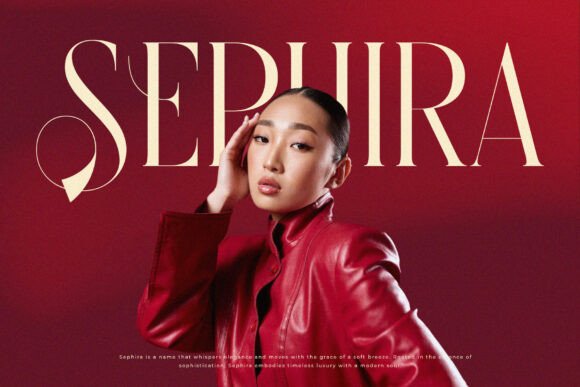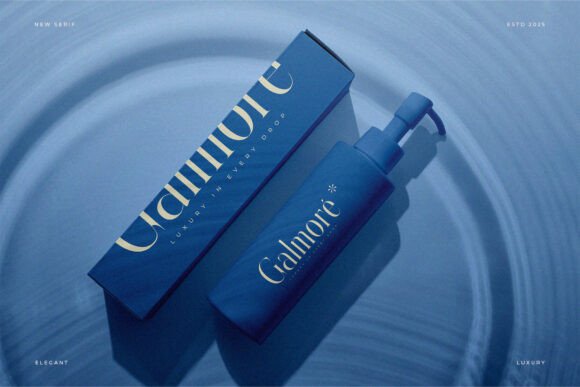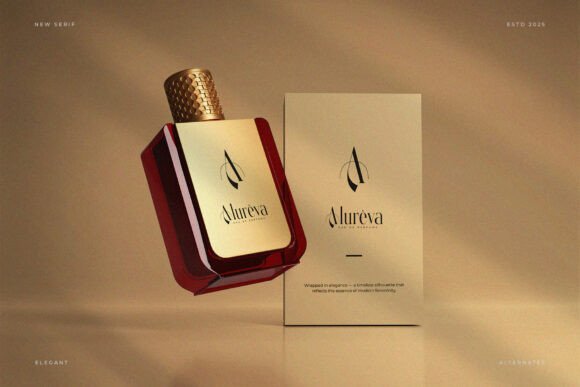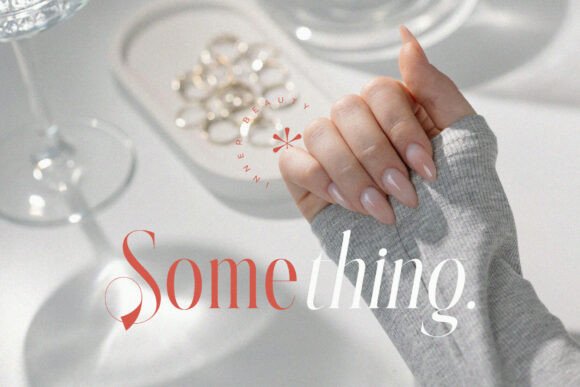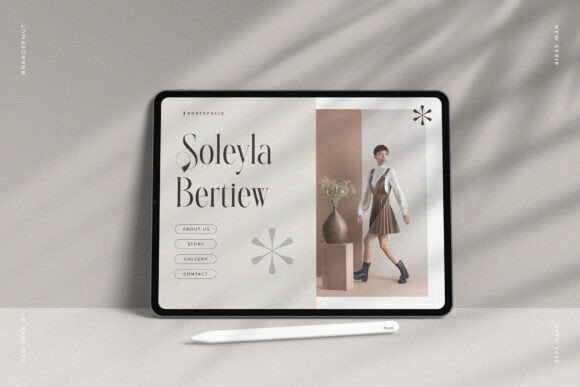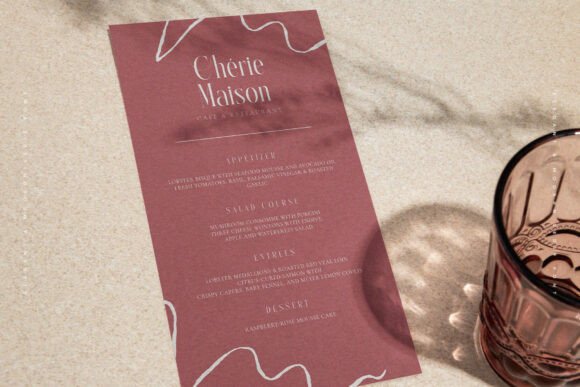
Introduction to Guegie Font
Guegie – Elegant & Modern Serif Font for Luxury Branding and Timeless Typography Guegie is an elegant and modern serif font meticulously crafted to deliver a luxurious, professional, and timeless impression.
| 👤 Author | BrandSemut |
Combining balanced letter proportions with sharp typographic details, Guegie offers a contemporary aesthetic while preserving the essence of classic serif design With tall, refined letterforms, this typeface is perfect for a wide range of design applications such as luxury branding, editorial design, wedding invitations, corporate identity, and premium packaging.
Key Features of Guegie Font